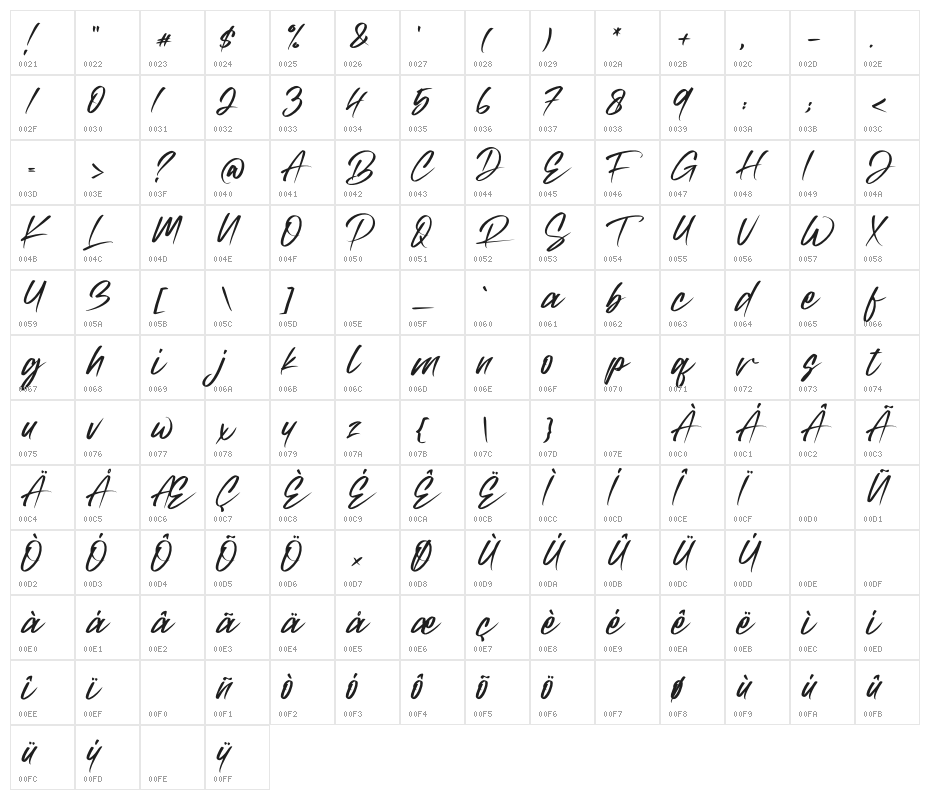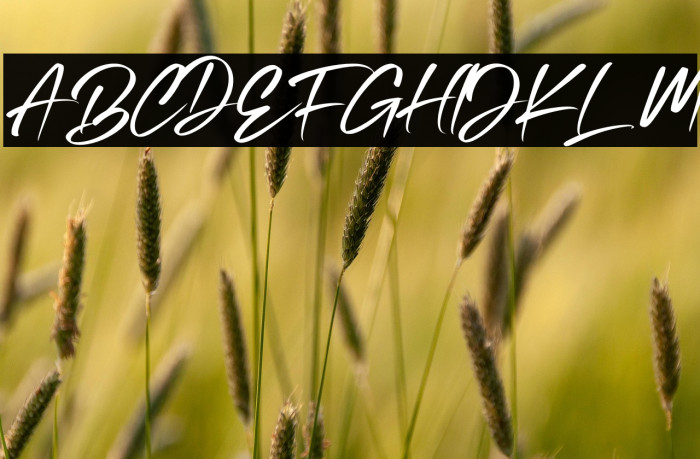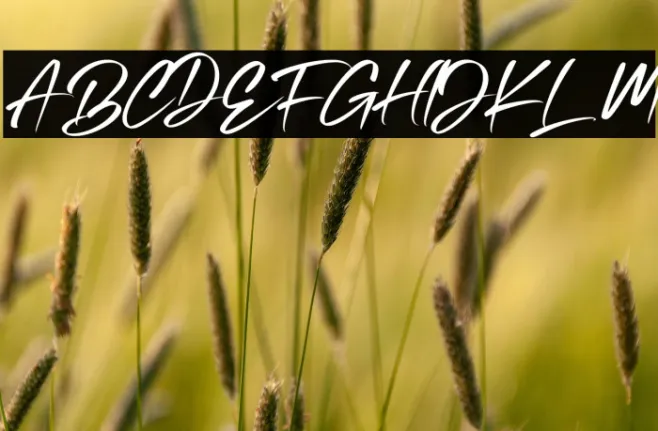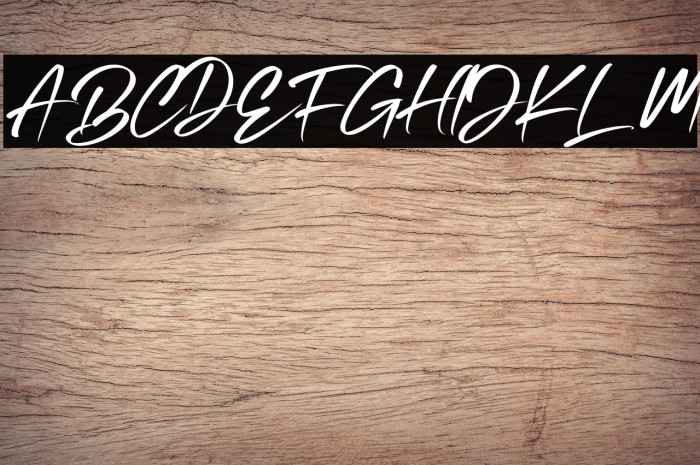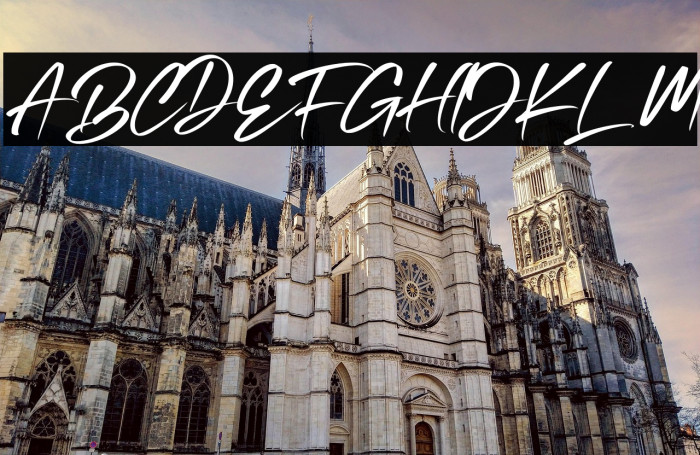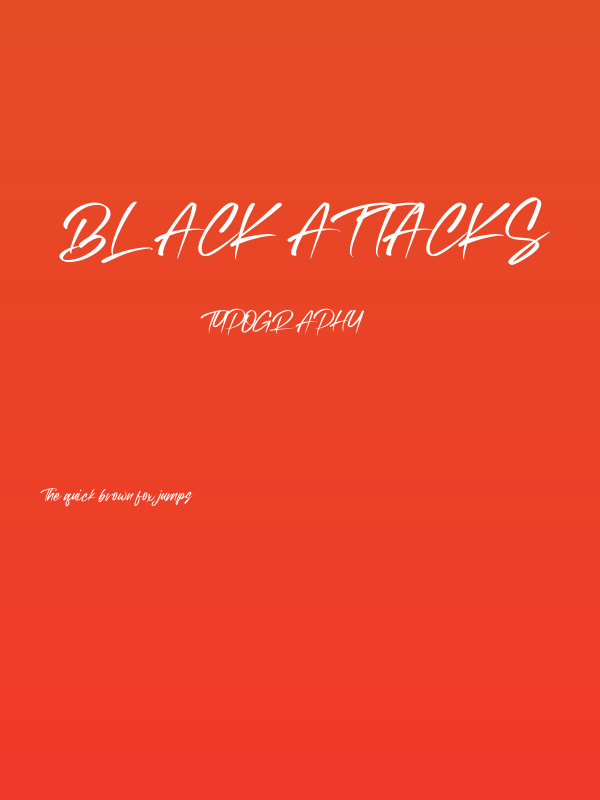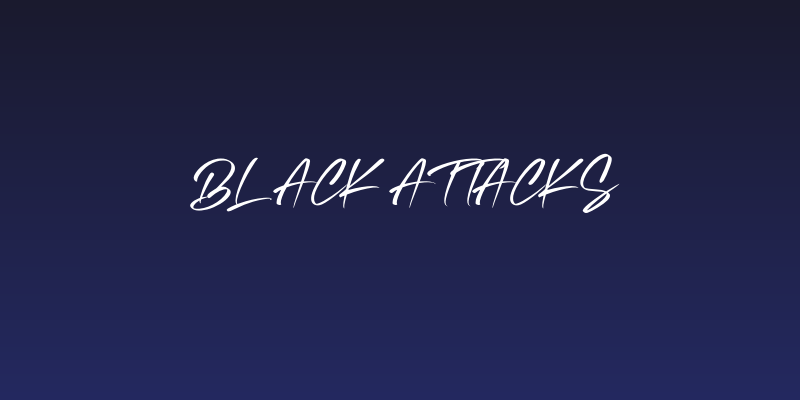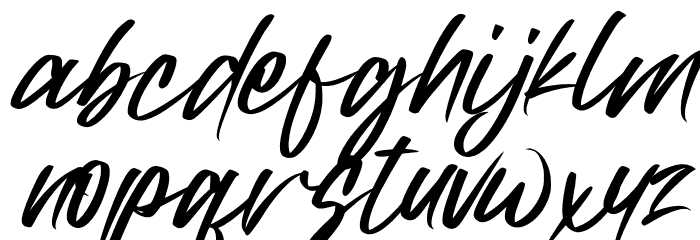
Black Attacks Font
Black Attacks Description
This font features a dynamic and expressive script style, characterized by its fluid and cursive letterforms. The strokes are bold and sweeping, giving it a sense of movement and energy. The uppercase letters are particularly striking, with dramatic flourishes and a sense of rhythm. The lowercase letters maintain a consistent flow, complementing the uppercase with their smooth curves. Numbers and special characters are designed with the same attention to detail, ensuring a cohesive look across all elements. This font is perfect for projects that require a touch of elegance and personality.
| Proposed Projects | Ideal for branding, invitations, posters, and any design needing a personal touch. |